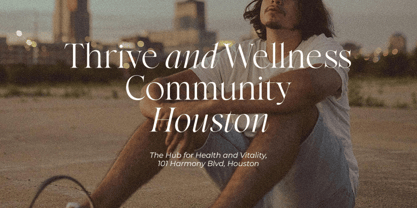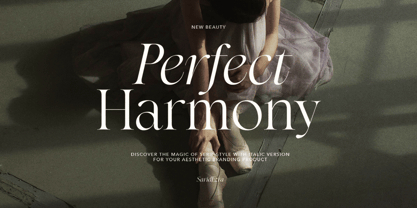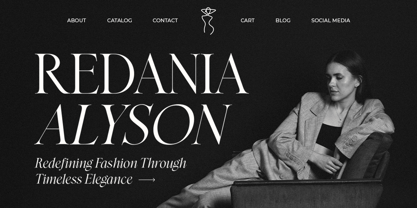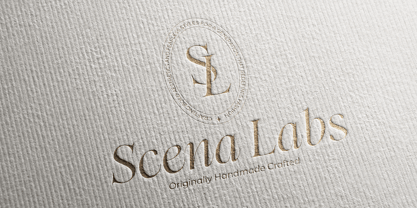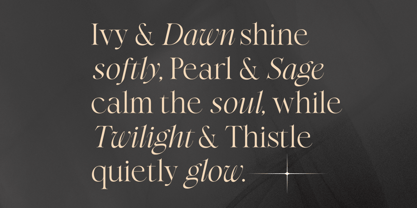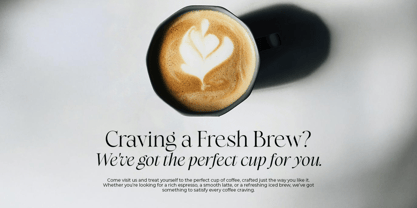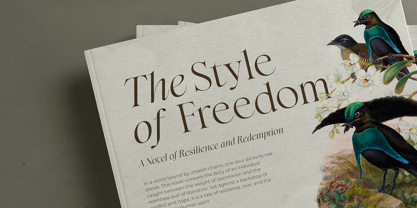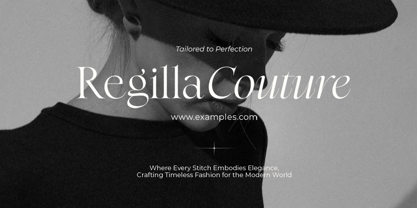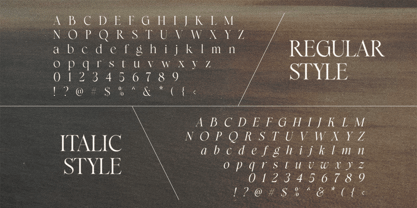
Perfect Harmony
by Sarid Ezra
The Perfect Harmony Font Family was designed by Sarid Ezra and published by Sarid Ezra. Perfect Harmony contains 2 styles and family package options.
Perfect Harmony is a classy serif with true italic that have modern, minimalist, and glamour vibes that you can use for any purposes such as wedding invitations, quotes, logo, and branding. With beautifully crafted, this font is suitable and timeless for any luxurious brand. This font also support multi language!